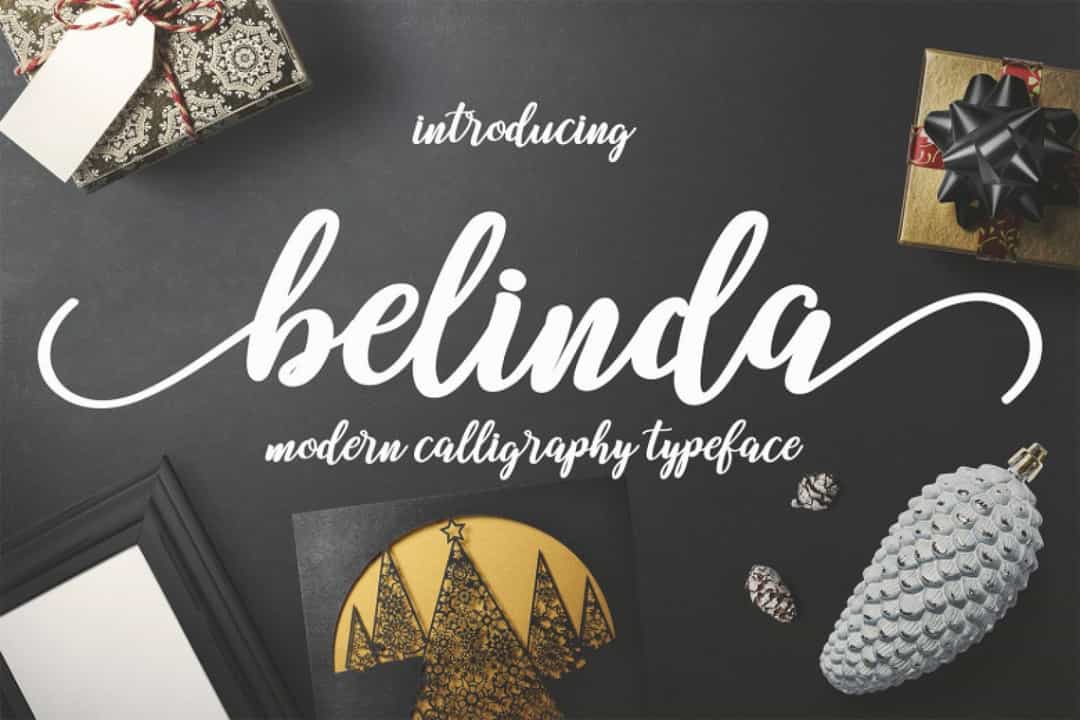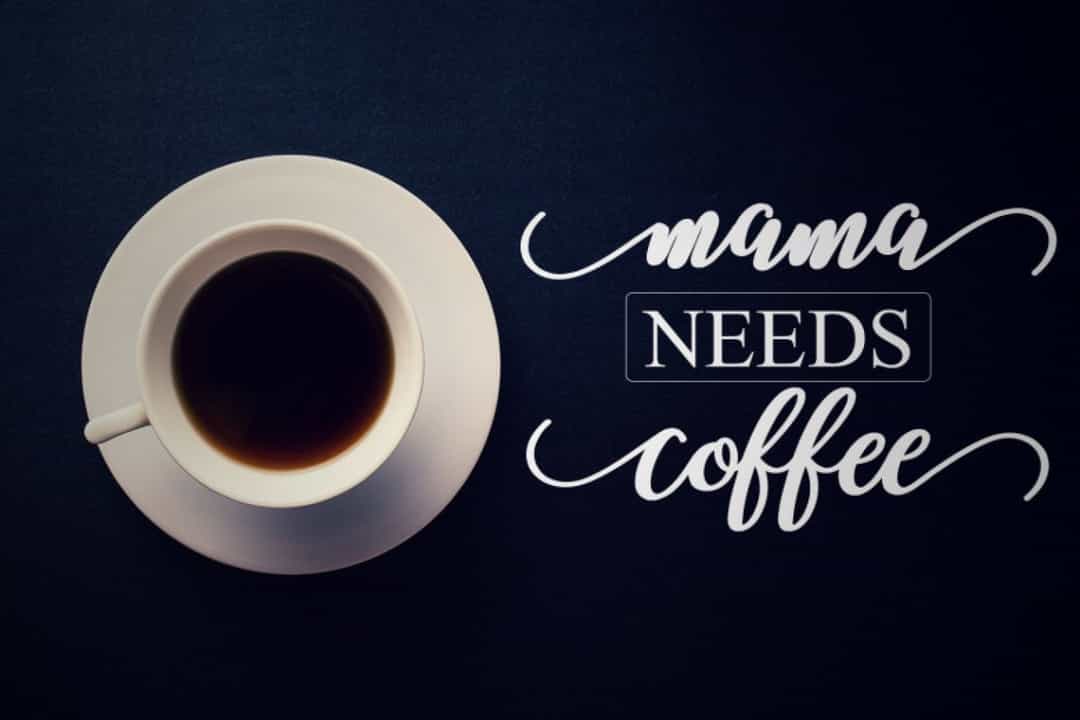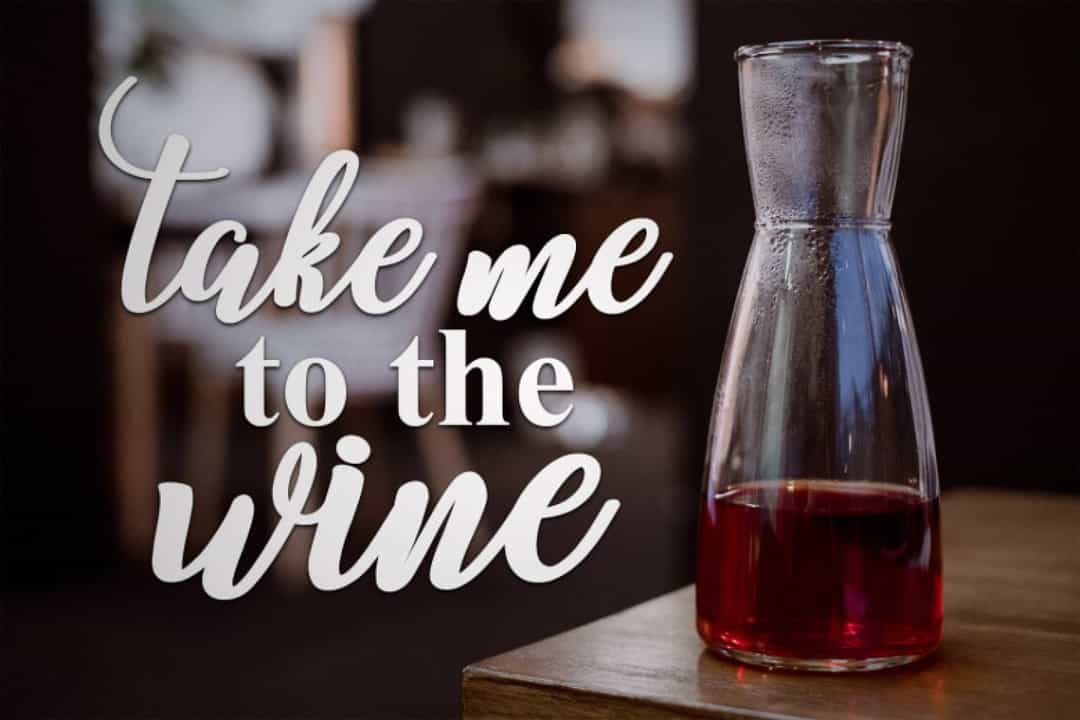
Meet Belinda Script, a fresh and modern script with a handmade calligraphy look and feel to it The decorative characters look so lovely on invitation, greeting cards, branding, business cards, quotes, posters, and a lot more!